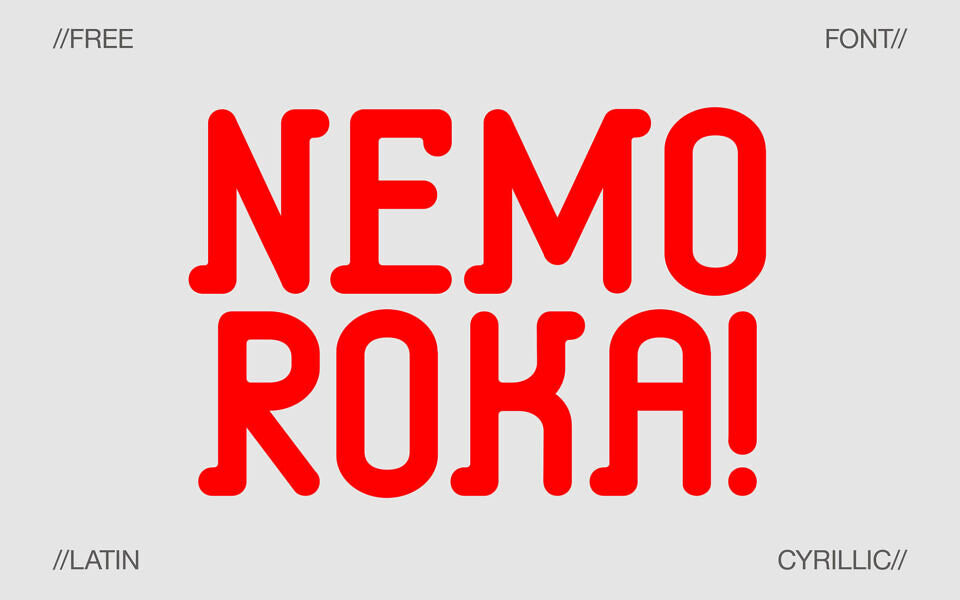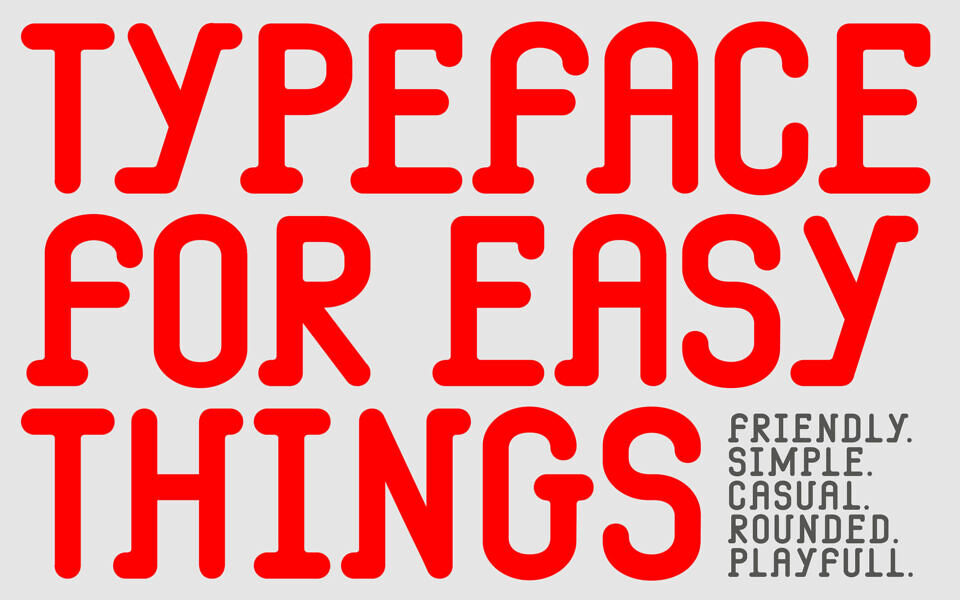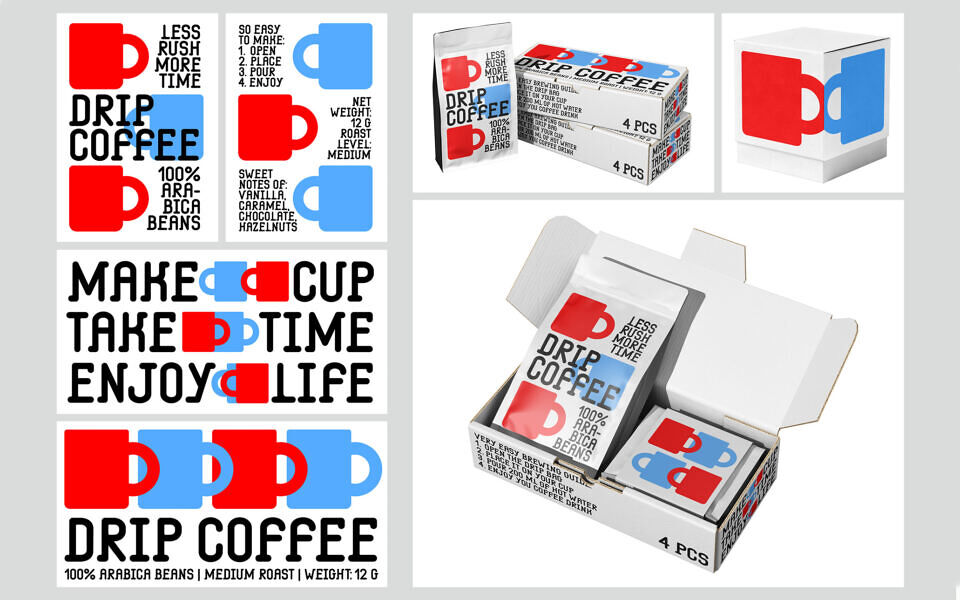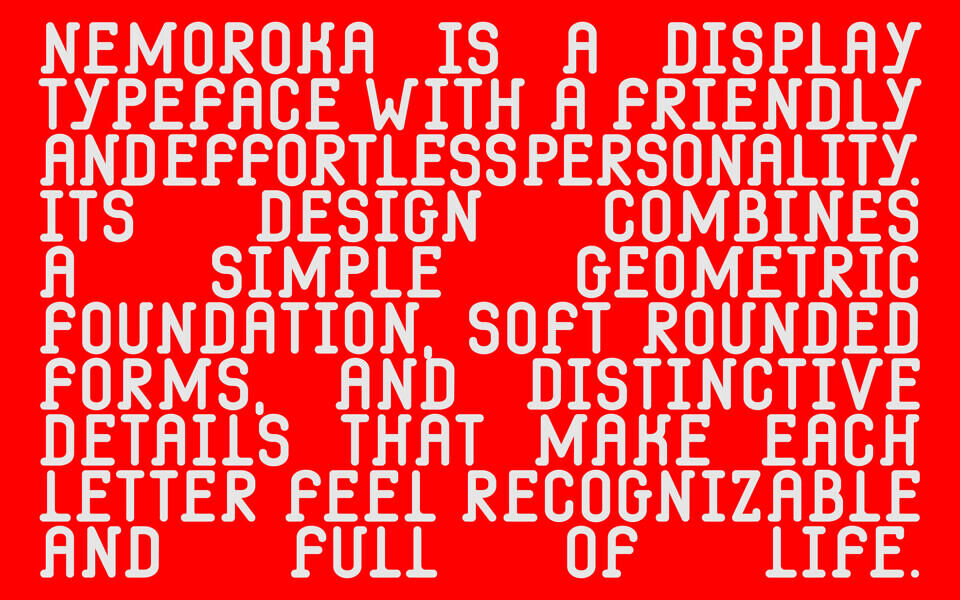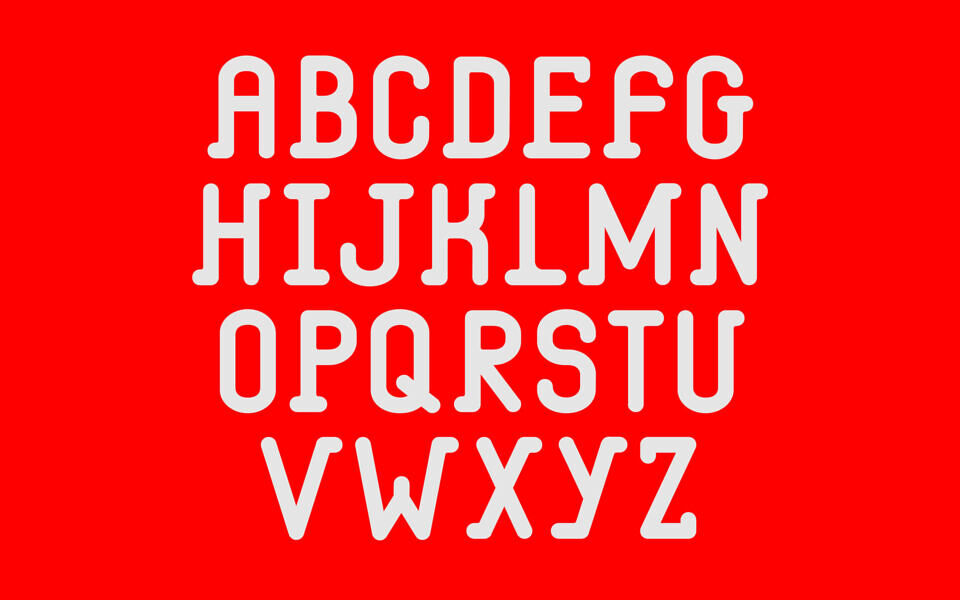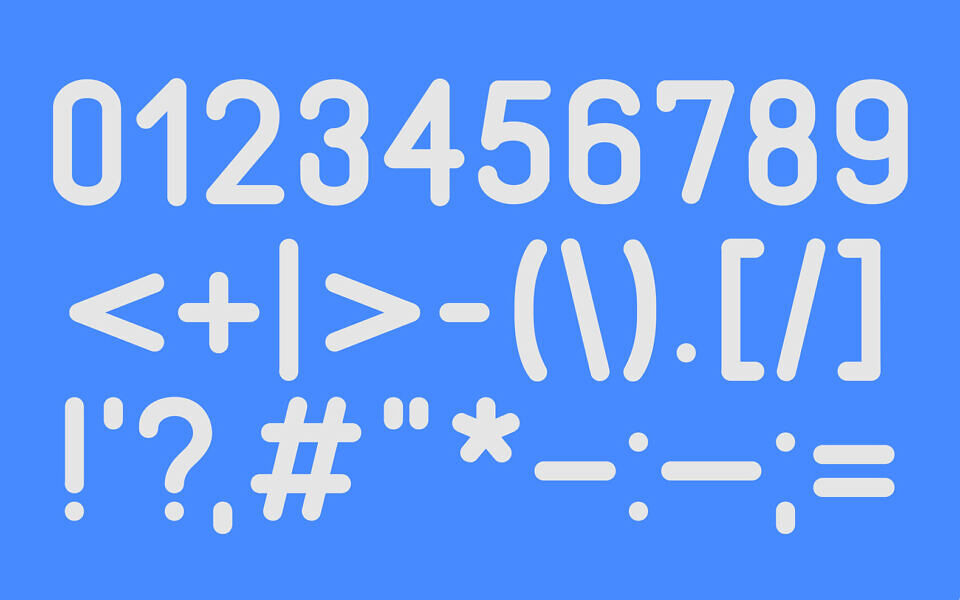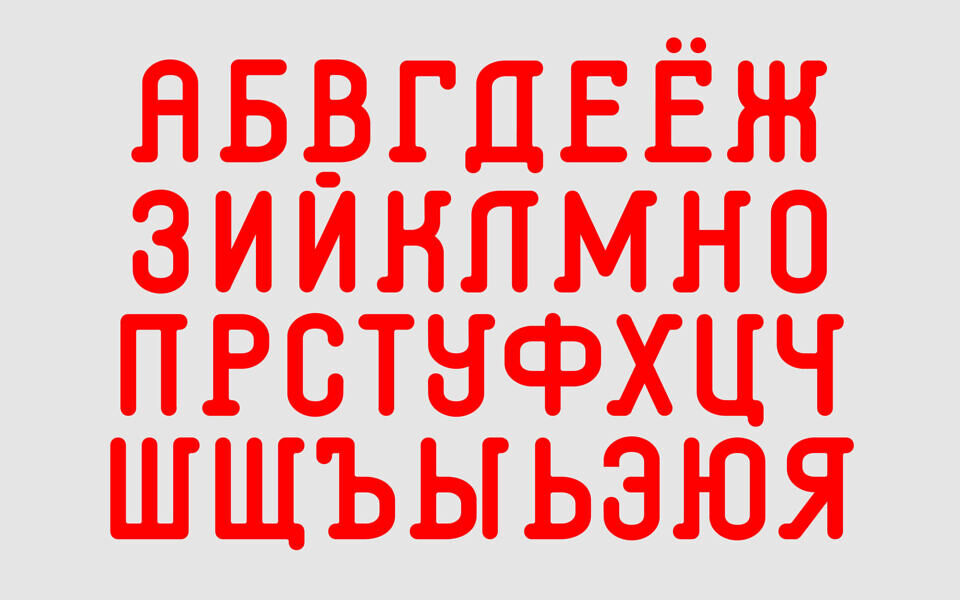
Nemoroka is a display typeface with a friendly and effortless personality. Its design combines a simple geometric foundation, soft rounded forms, and distinctive details that make each letter feel recognizable and full of life.
The typeface conveys a sense of ease and naturalness, avoiding excessive rigidity and formality. Thanks to its open letterforms and smooth rhythm, it appears contemporary while maintaining a warm and human character. Nemoroka attracts attention without being overwhelming, helping to create visual identities filled with optimism, simplicity, and a sense of freedom.
The typeface is well suited for branding, packaging, posters, editorial design, festival graphics, digital media, and projects that aim to communicate in a clear, approachable, and engaging way.